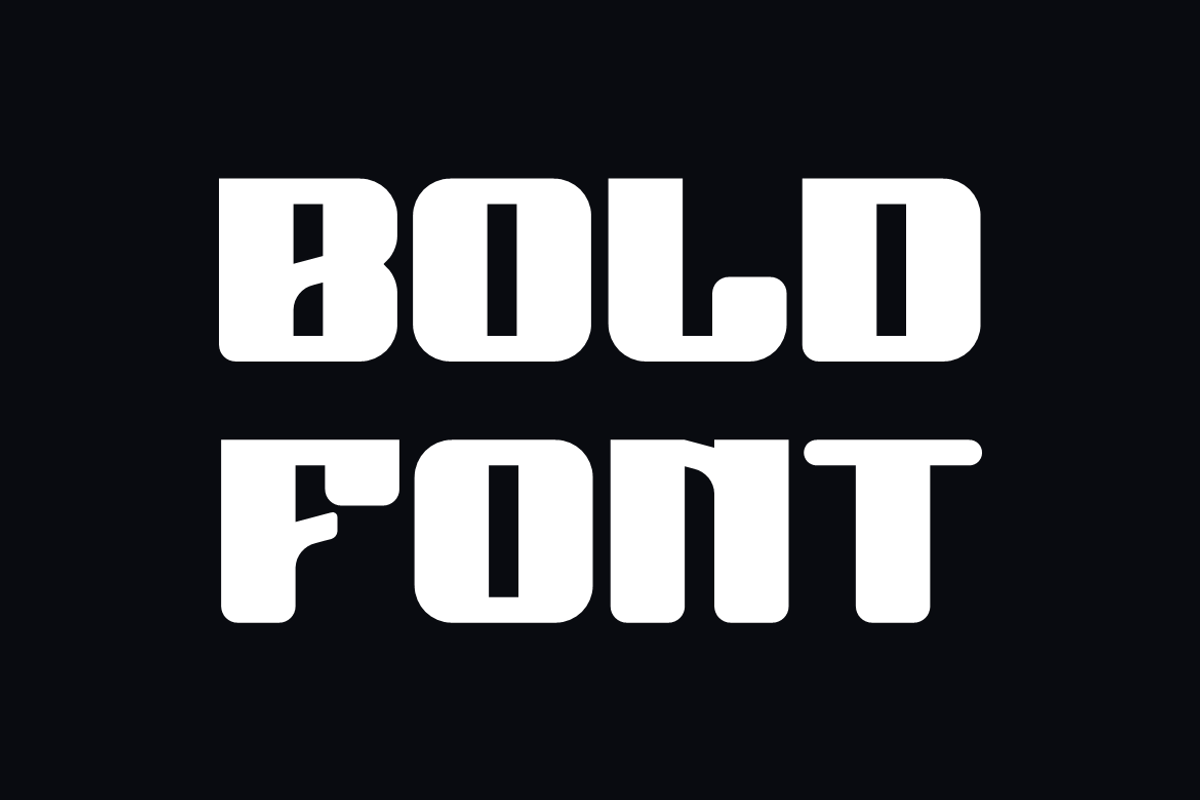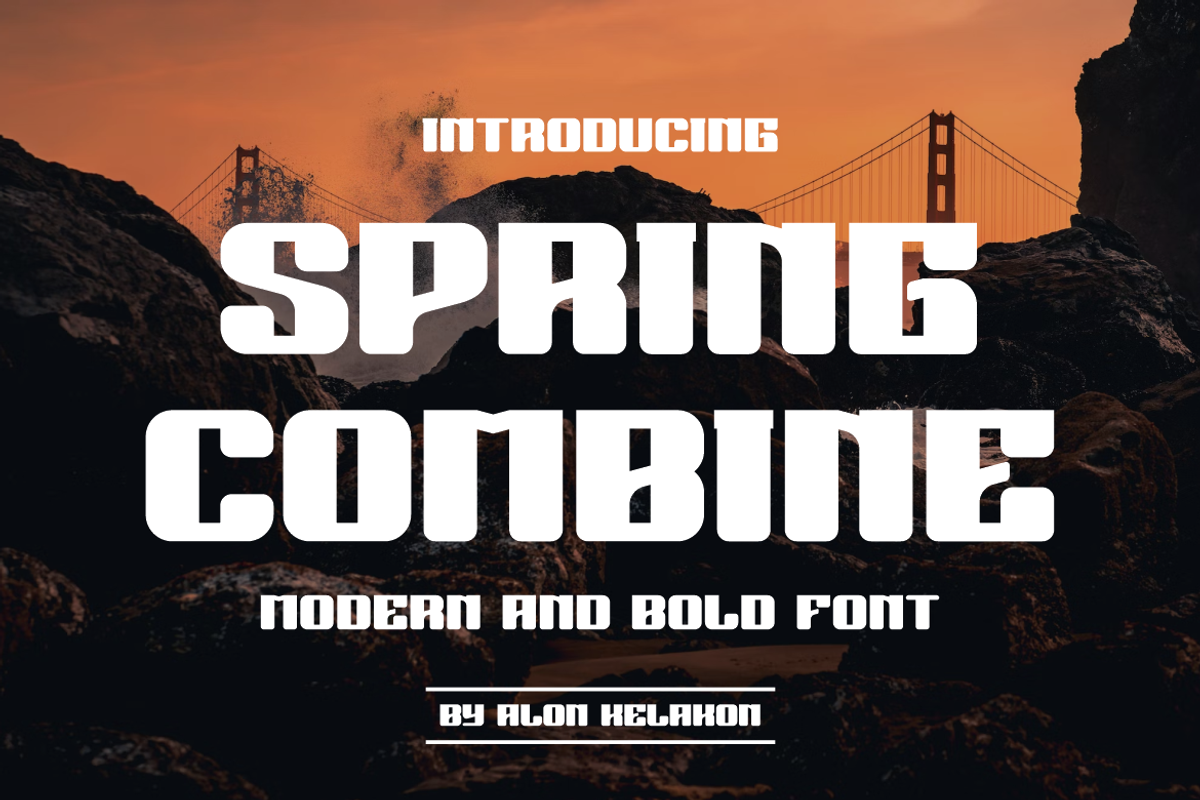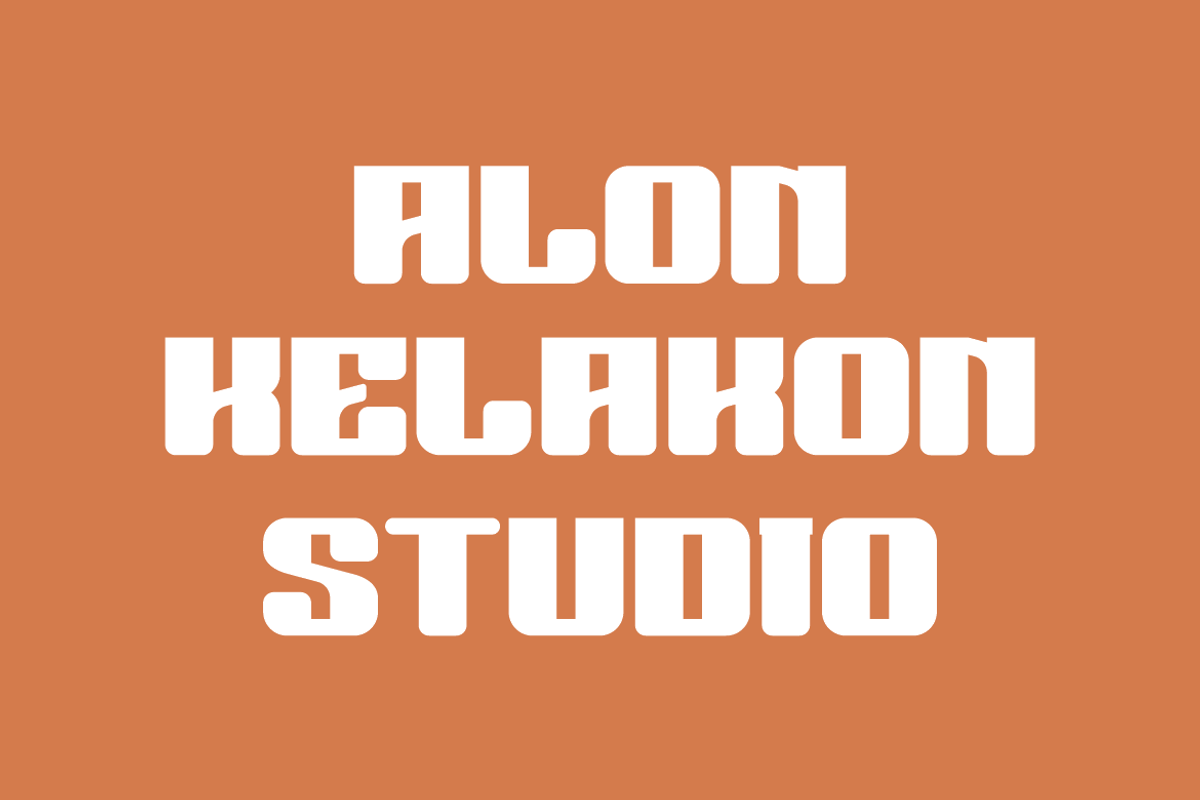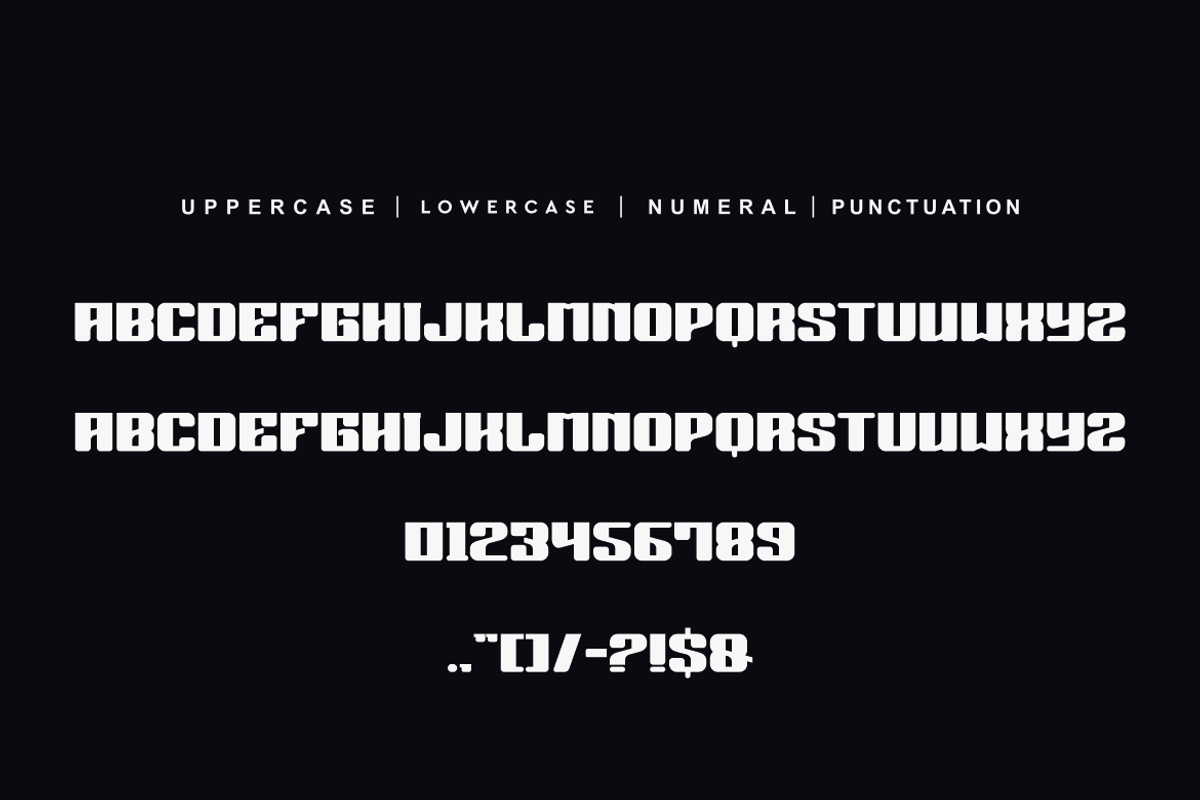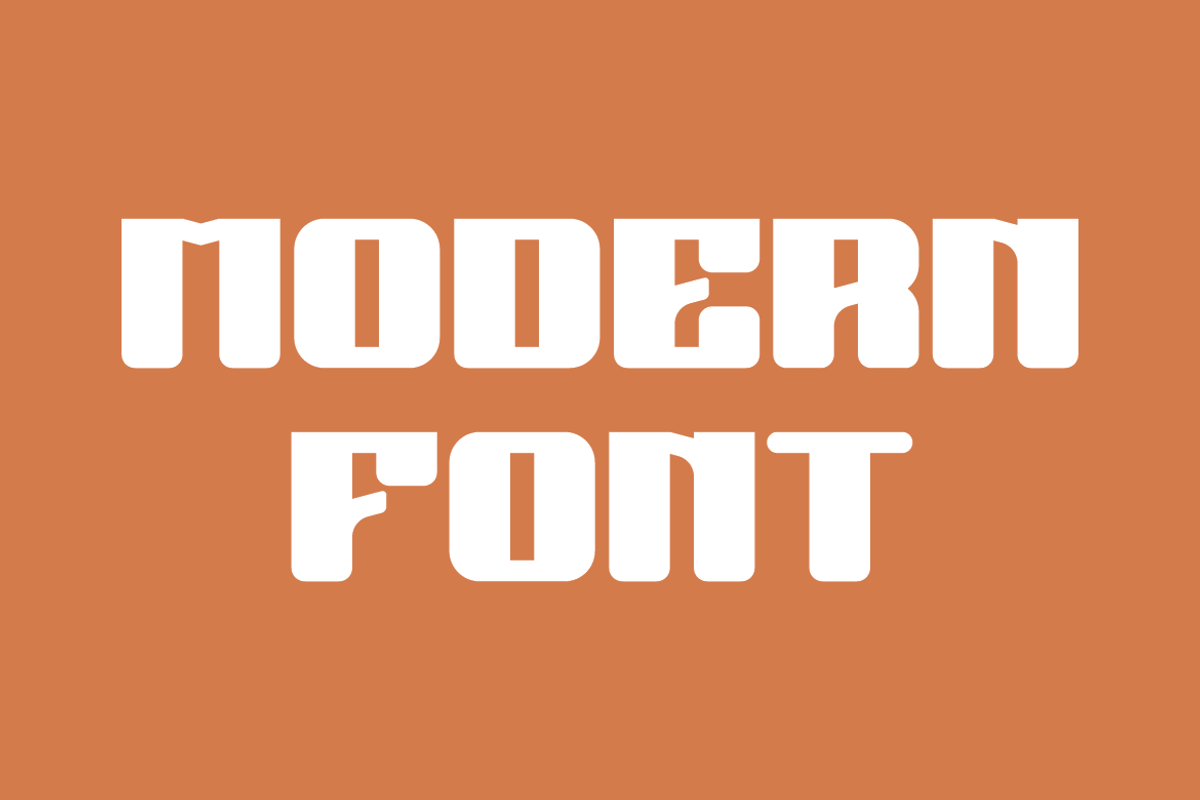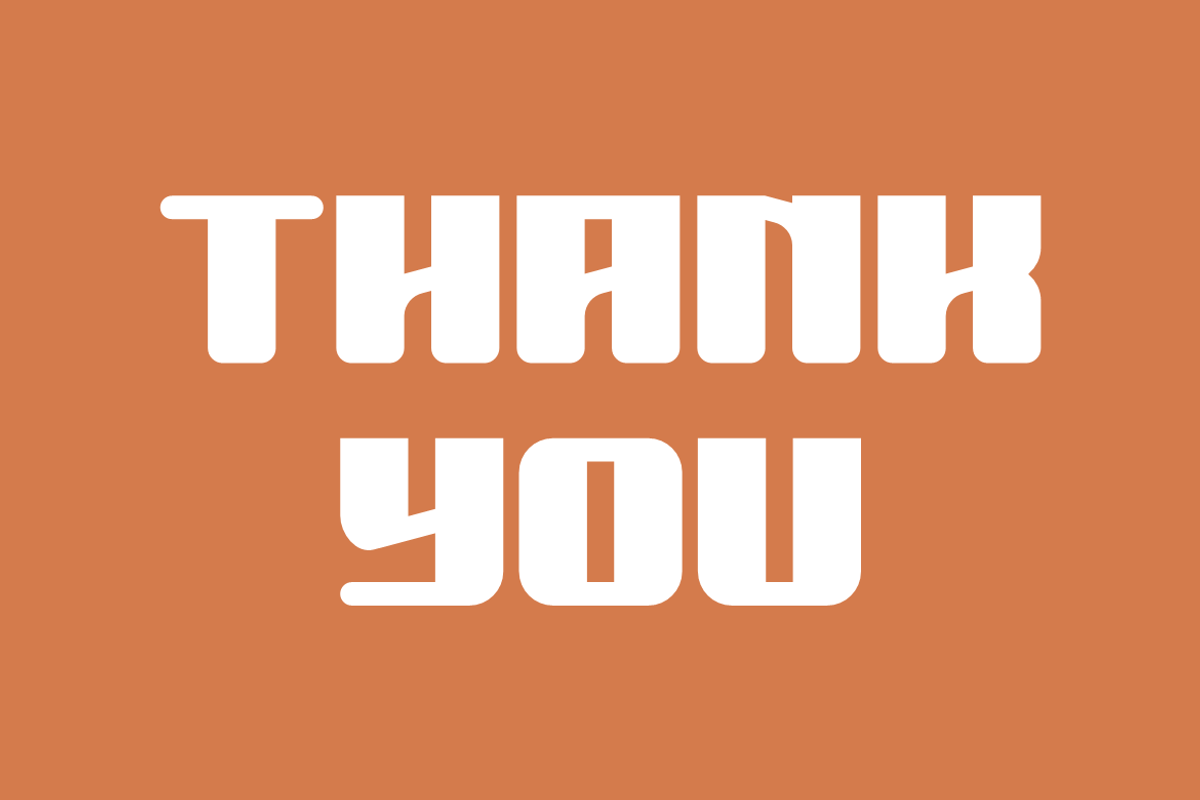
Spring Combine
Spring Combine Font is unique . Ready to use for your design like labeling, movie sceen, poster, movie title, gigs, album covers, logos, and much more.